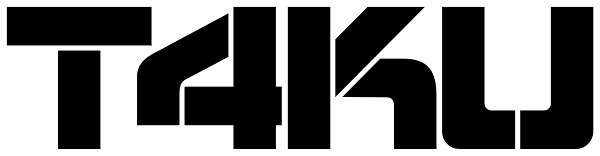
Taku
Taku comes in two styles, Taku regular and Taku Solid. As one of the most creative faces to date, this is a beautiful piece aimed at a whole range of markets for print and digital work. Super creative, extremely eye catching, and almost obsessively...
Taku Solid
Taku